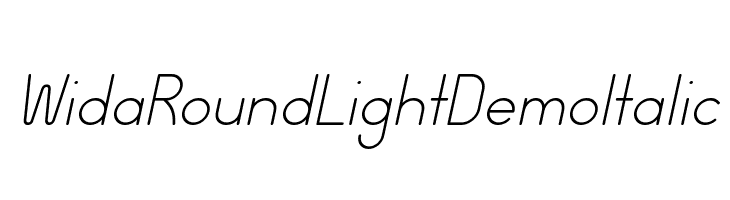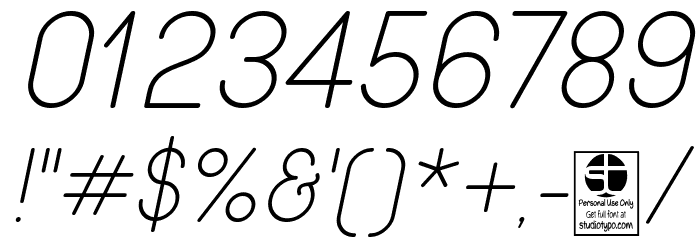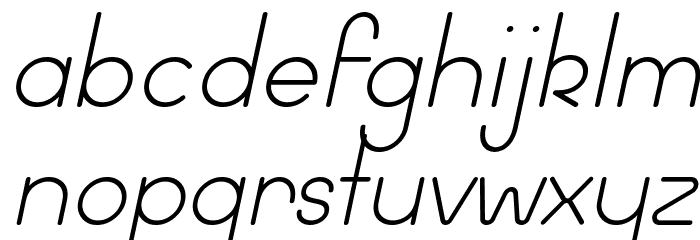
Wida Round Light Demo Italic Font
Wida Round Light Demo Italic Description
This font features a sleek, rounded design with a light and airy feel. The characters are slightly elongated and maintain a consistent stroke width, giving it a modern and clean appearance. The italic style adds a touch of elegance and fluidity, making it suitable for both casual and professional settings. The rounded edges soften the overall look, providing a friendly and approachable vibe. The spacing between characters is balanced, ensuring readability while maintaining a stylish aesthetic. This font is versatile, fitting well in various design contexts.
A modern, rounded, light italic font with a clean and elegant style from Uncategorized fonts.
- Proposed Projects: Ideal for branding, advertising, product packaging, and digital content where a modern and approachable look is desired.
- Weight: Light
- Use Case: Headlines, Logos, Digital content